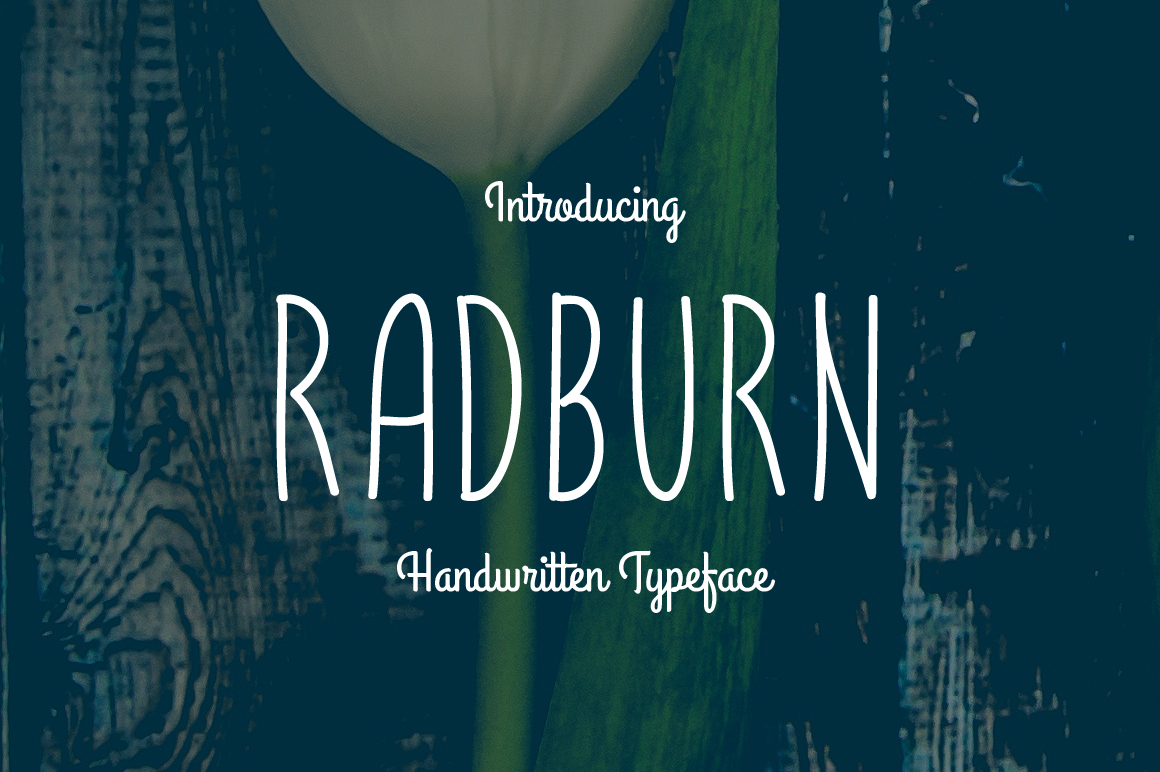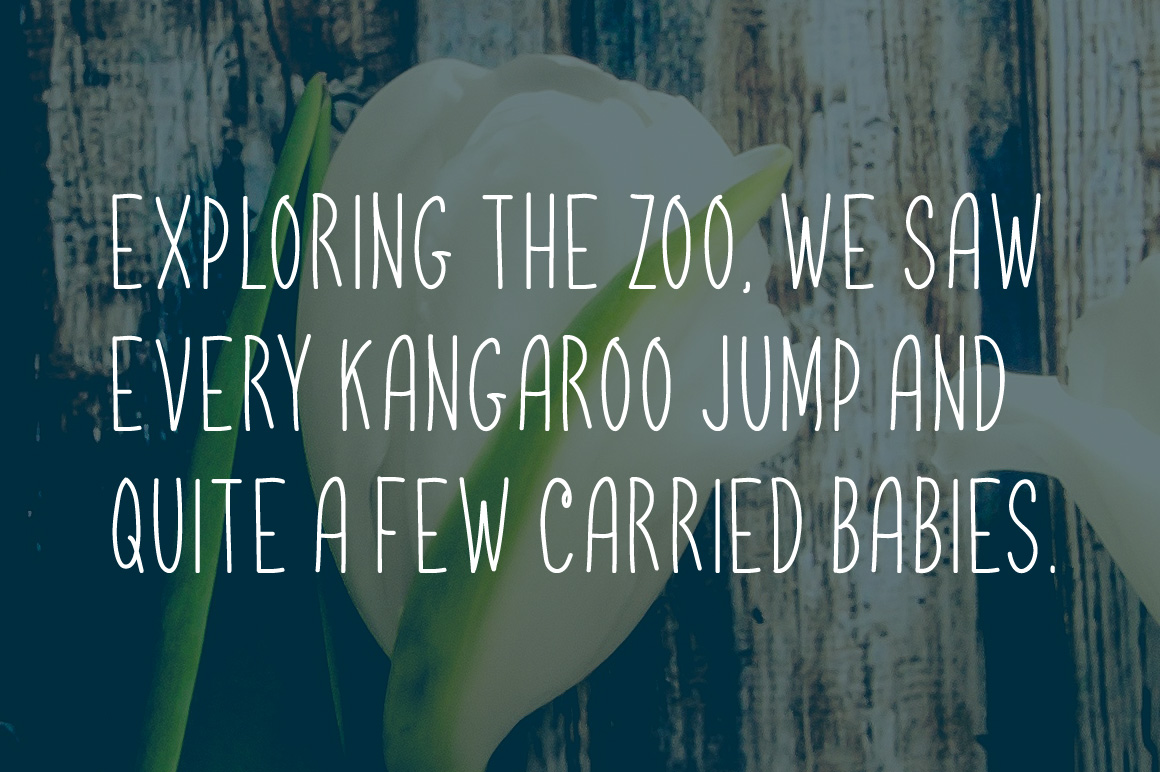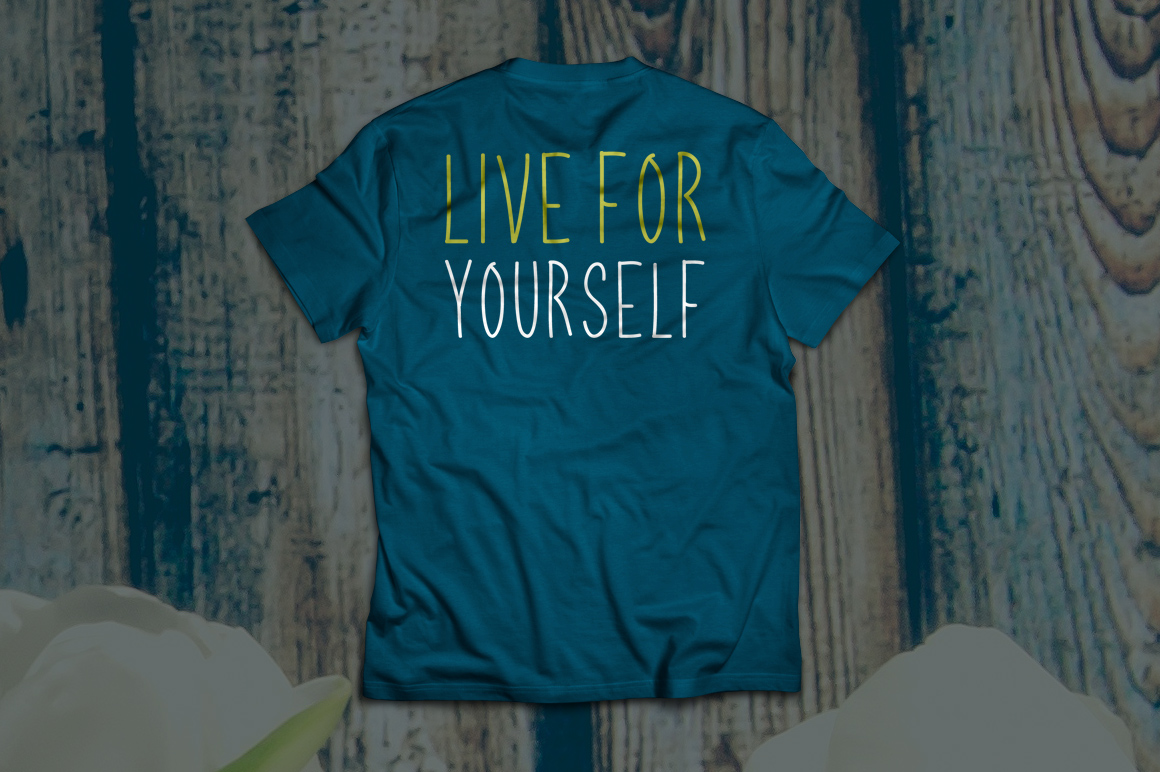
HomeScript FontsRadburn Font Script Fonts Radburn Font FacebookXPinterestWhatsApp Radburn Font Poster 2 Radburn Font Poster 3 Radburn Font Poster 4 About Radburn Font Radburn is a monoline typeface with a smooth, neat exterior. DOWNLOAD ON CREATIVE FABRICAThis font is sold and delivered by Creative Fabrica. Font Canyon may earn a commission if you buy through this link. People also explored Craft Cube Font Balisong Ultra Font Galatica Family Font Varelmo Font Adellia Heart Font The Love Font Marble Font Parchemin Baloney Script Font 339 0 TagsRadburn Font Previous articleTrefay FontNext articleScribble Script Font LEAVE A REPLY Cancel reply Comment: Please enter your comment! Name:* Please enter your name here Email:* You have entered an incorrect email address! Please enter your email address here Website: Save my name, email, and website in this browser for the next time I comment. Personal Use Free Hanifah Personal Use Free Read more about this font Recharge Bold Personal Use Free Read more about this font Americana Personal Use Free Read more about this font Angista Script Personal Use Free Read more about this font BLOG Exploring Font Trends Shaping Communication in the Digital Era Fonts, like all design elements, are subject to trends. They play a crucial role in communicating a brand's personality,... Top 10 Handwritten Fonts That Elevate Your Designs Transform Your Website: Elevate Your Typography with 7 Best Web Font Generators Where to Buy American Fonts Online in 2024